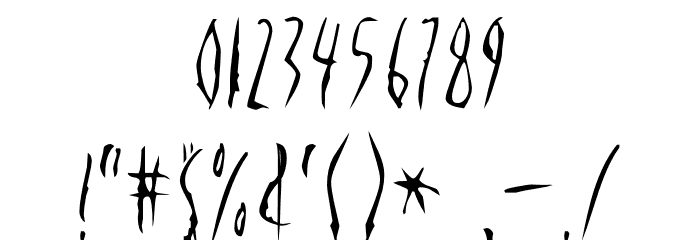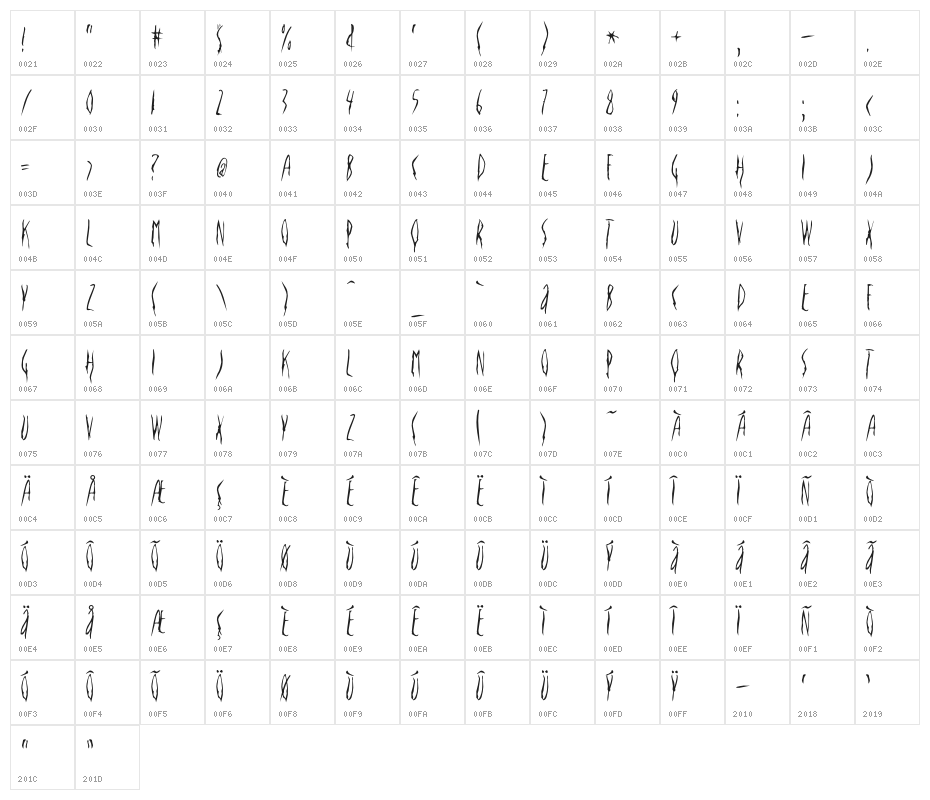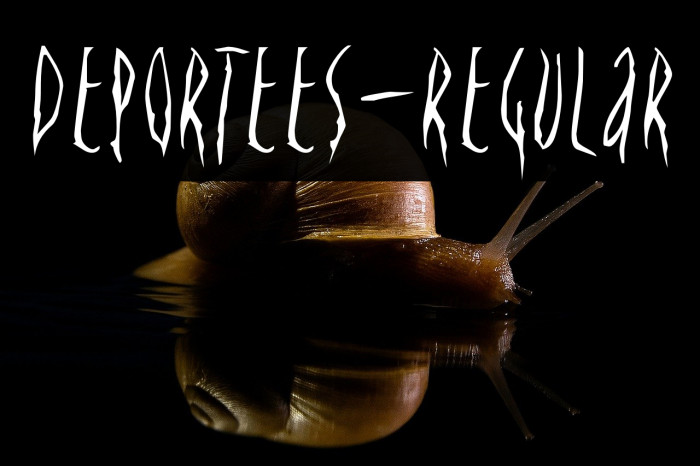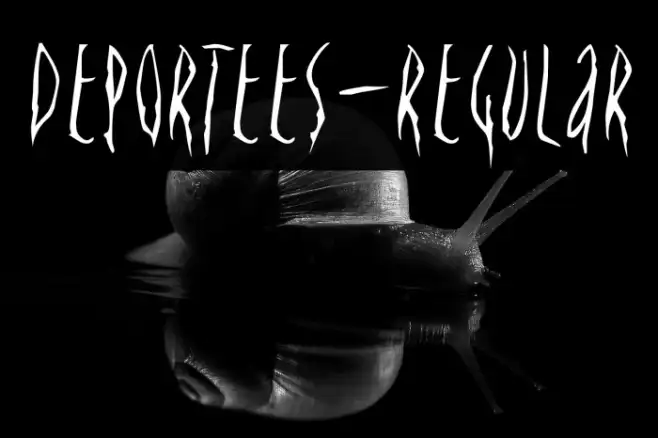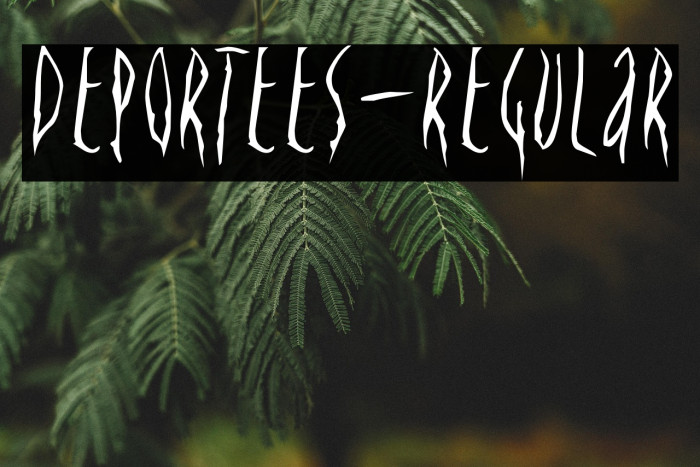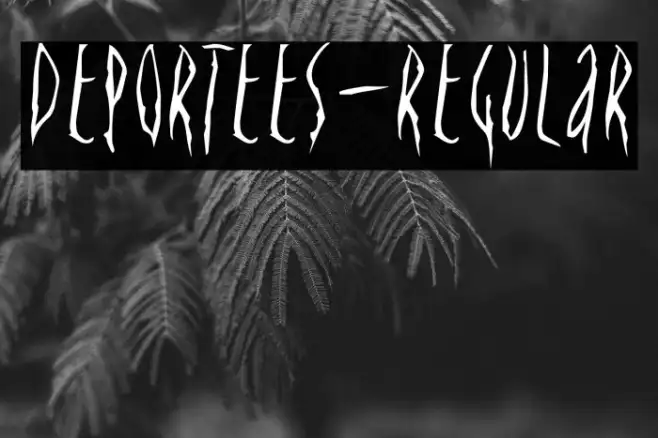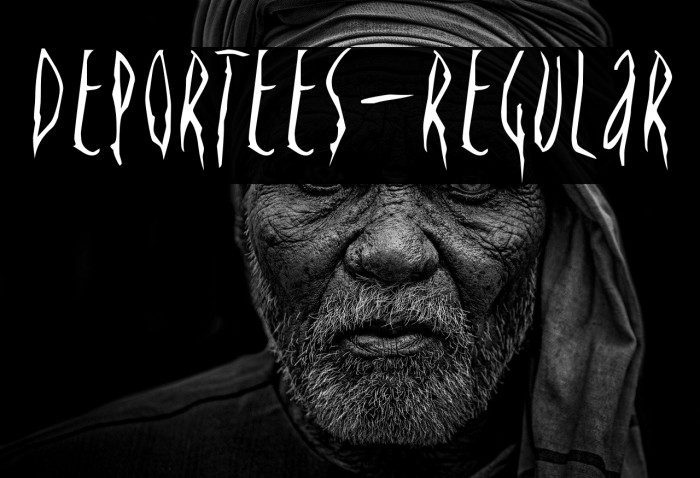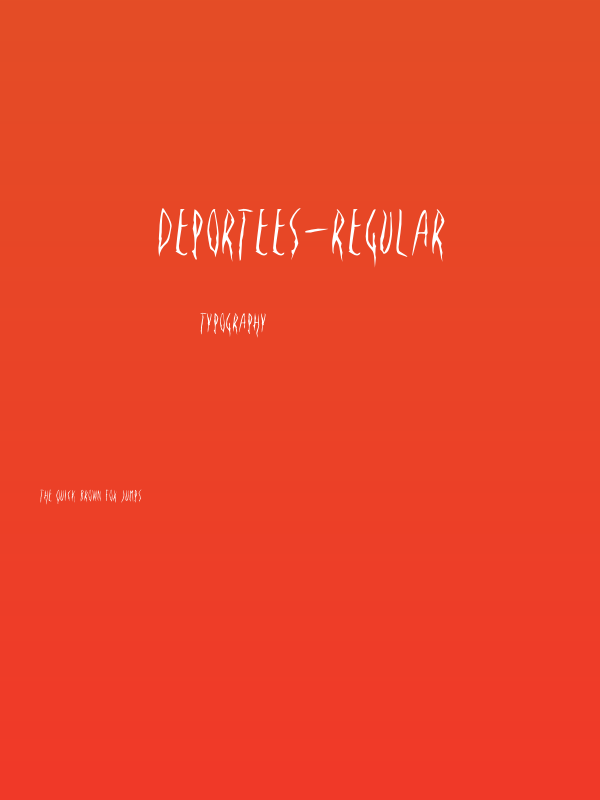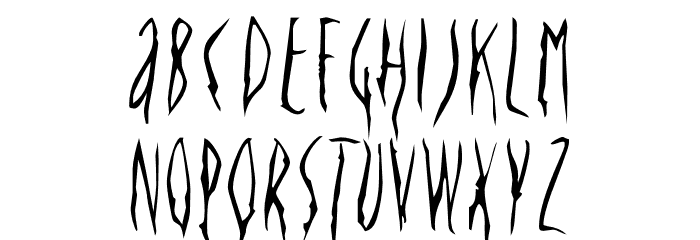
Deportees-Regular Font
Deportees-Regular Description
This font features a striking and edgy design with sharp, angular lines that give it a jagged, almost thorn-like appearance. The characters are elongated and narrow, creating a sense of height and drama. The uppercase and lowercase letters maintain a consistent style, with each character exhibiting unique cuts and angles that contribute to its distinctive look. The numerals and special characters follow the same design principles, ensuring a cohesive appearance across all glyphs. This font's bold and unconventional style makes it ideal for projects that require a strong visual impact.